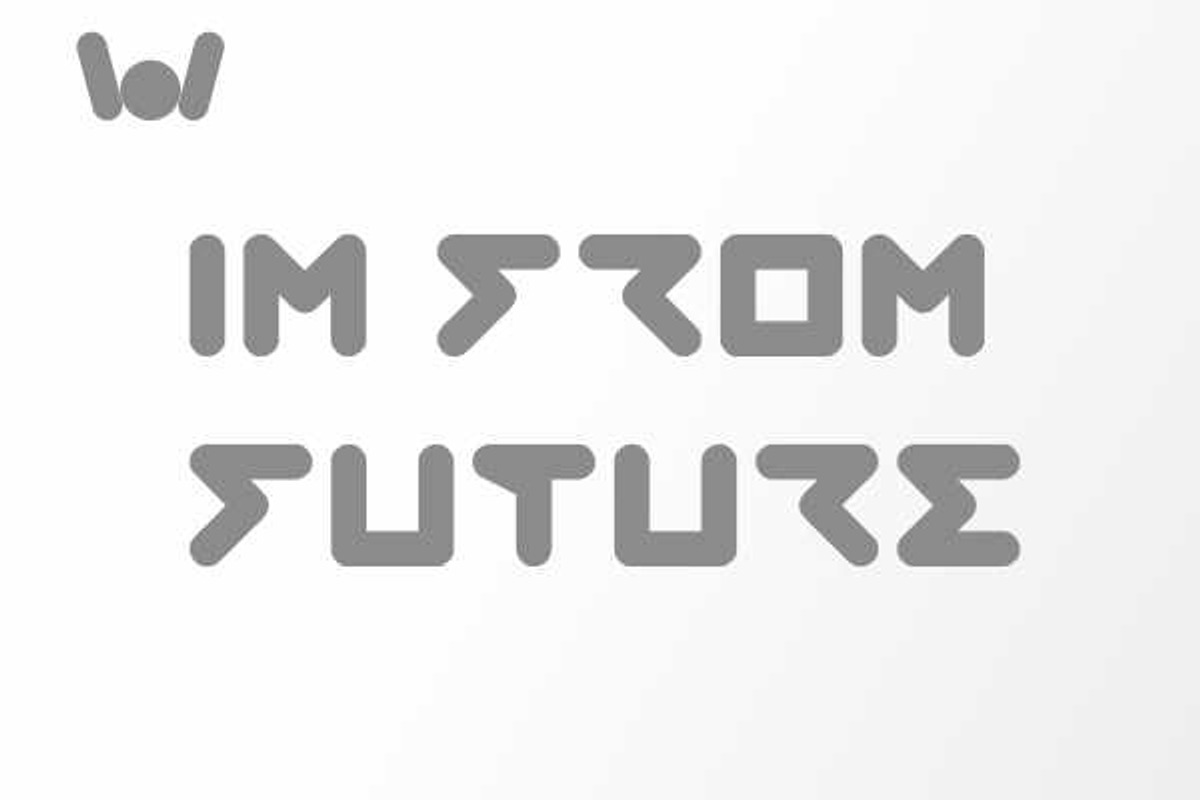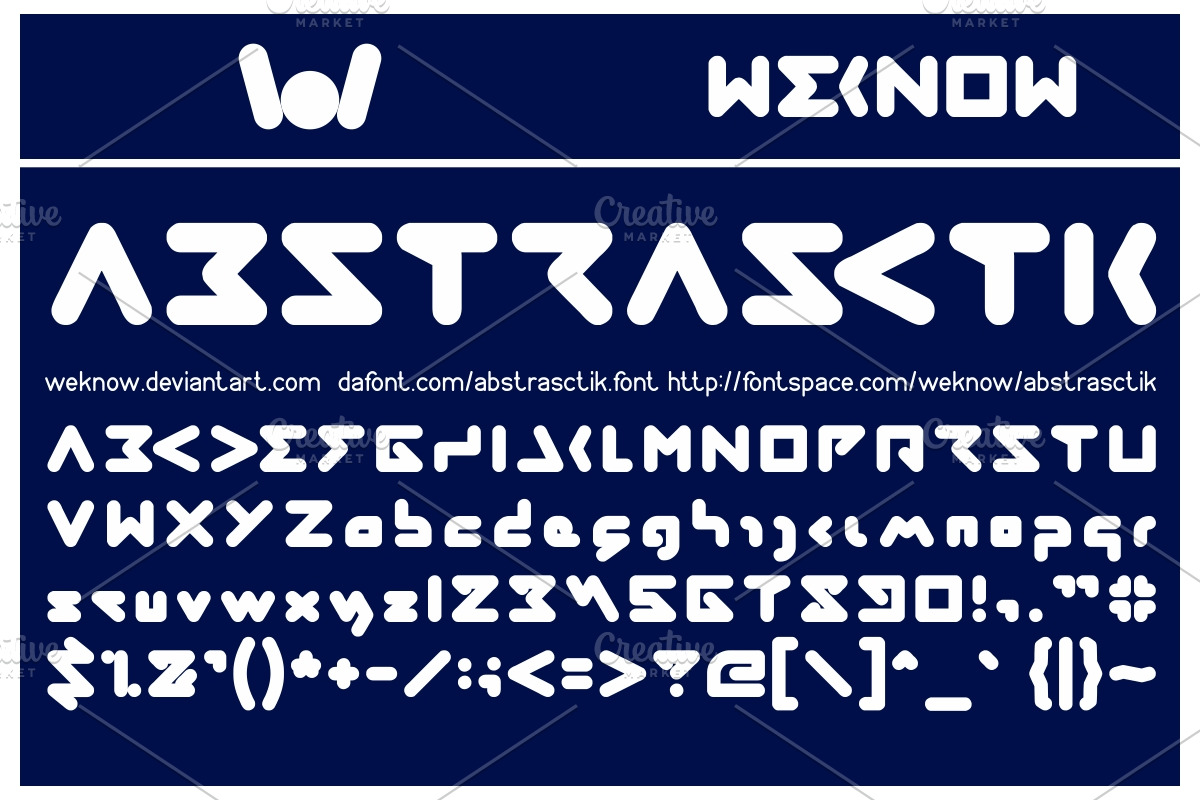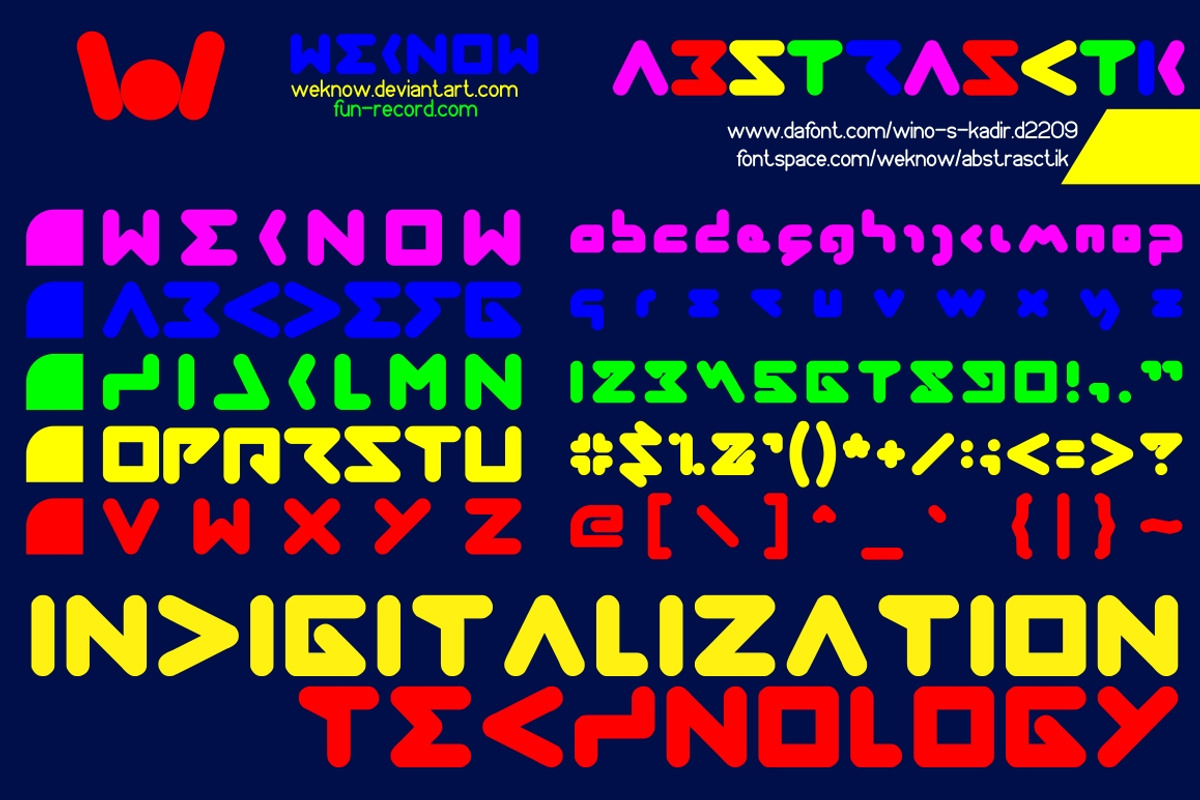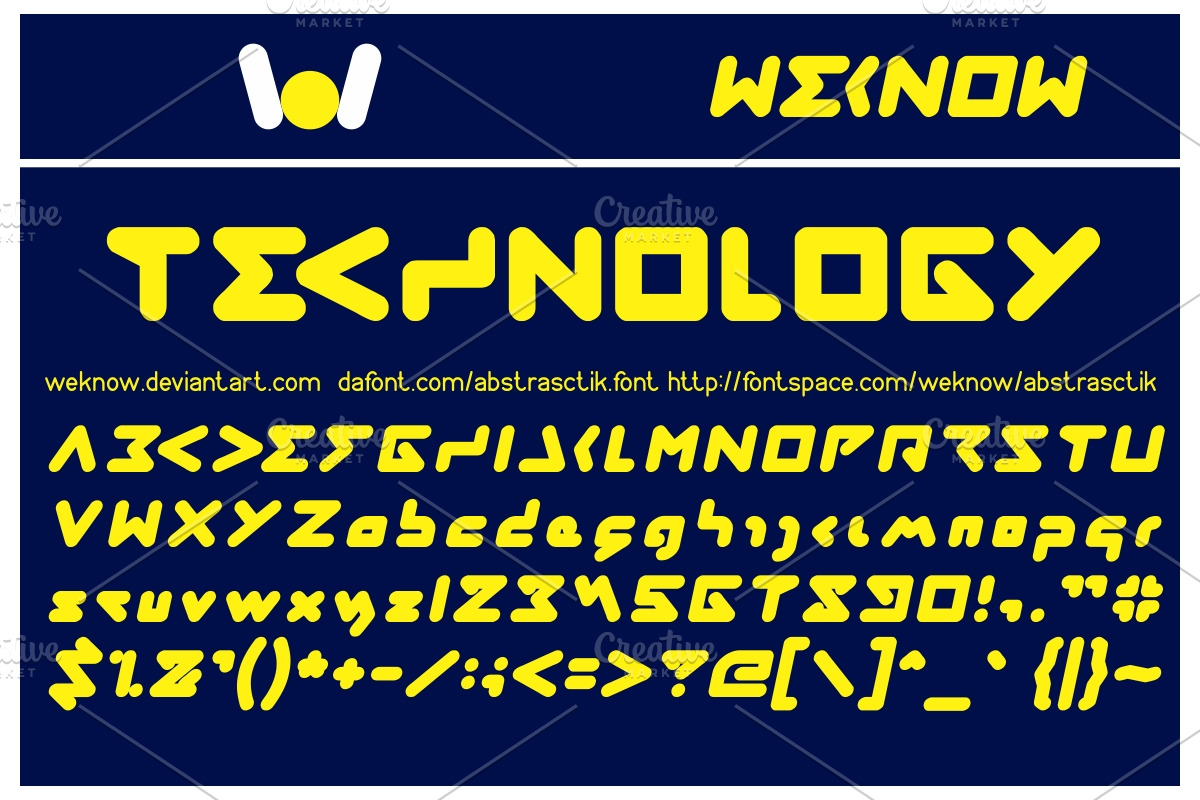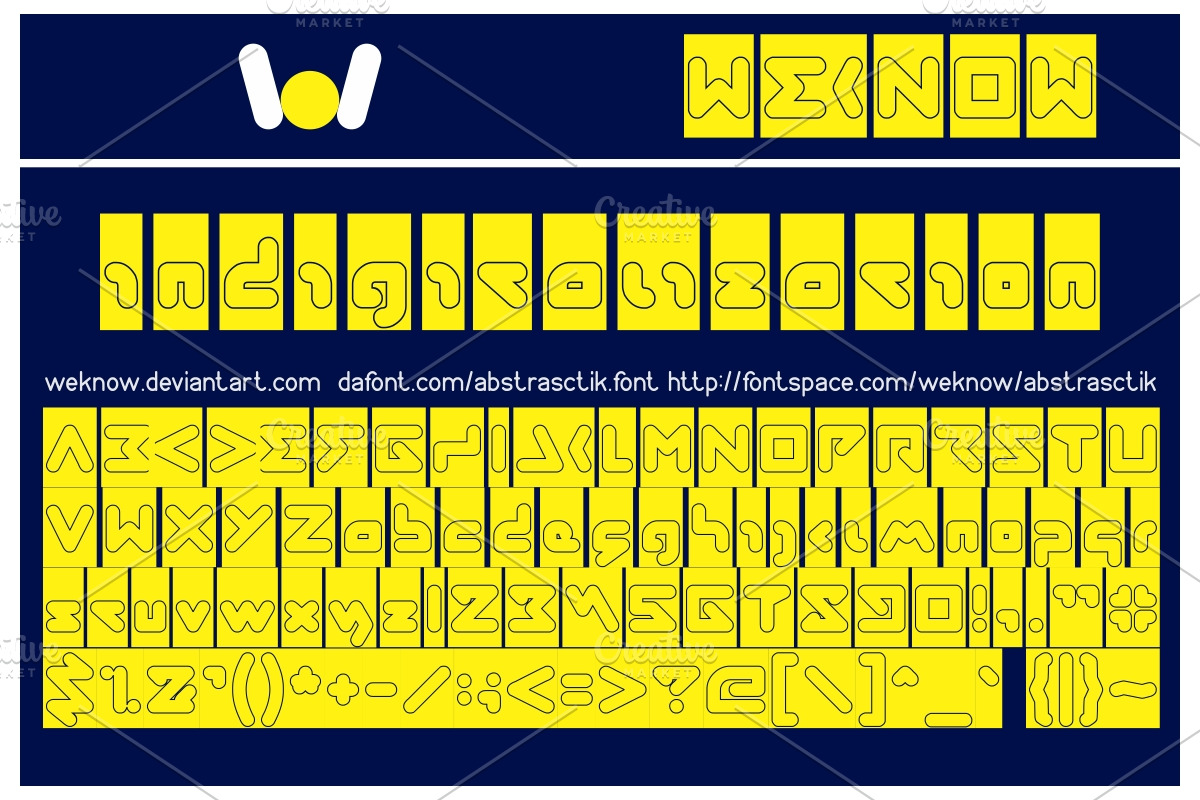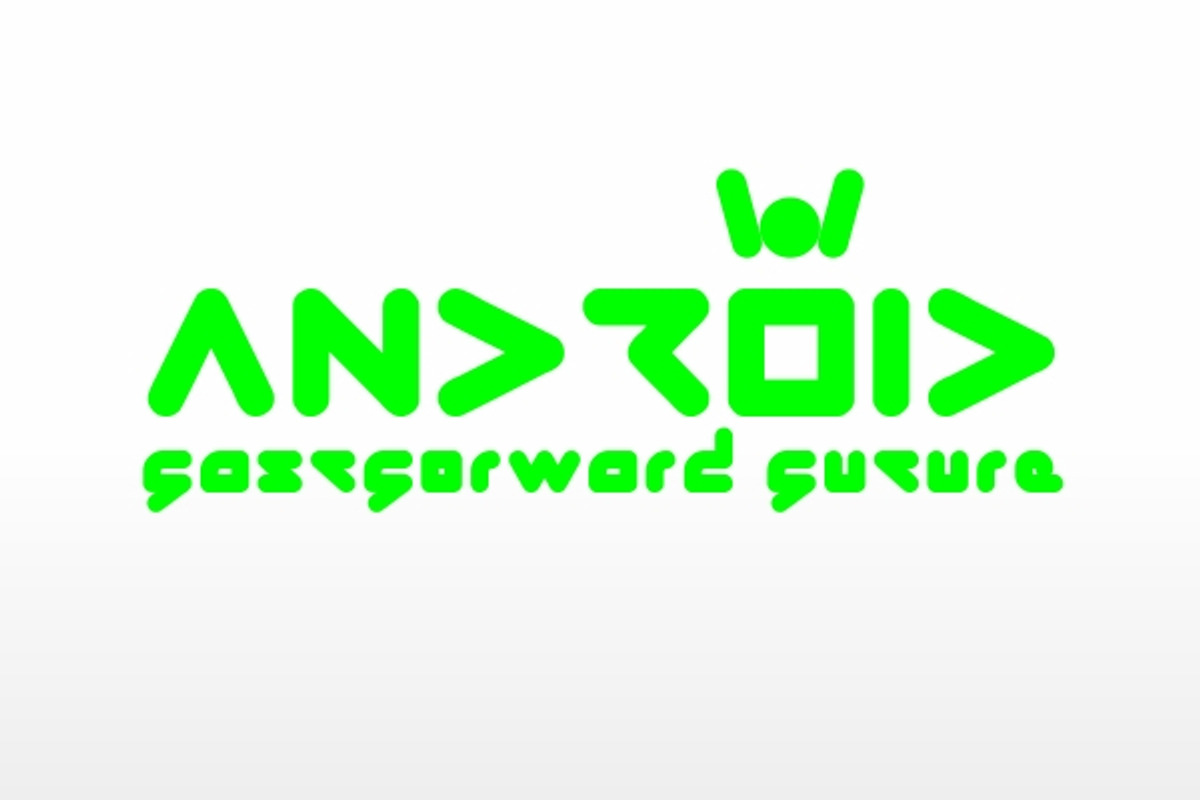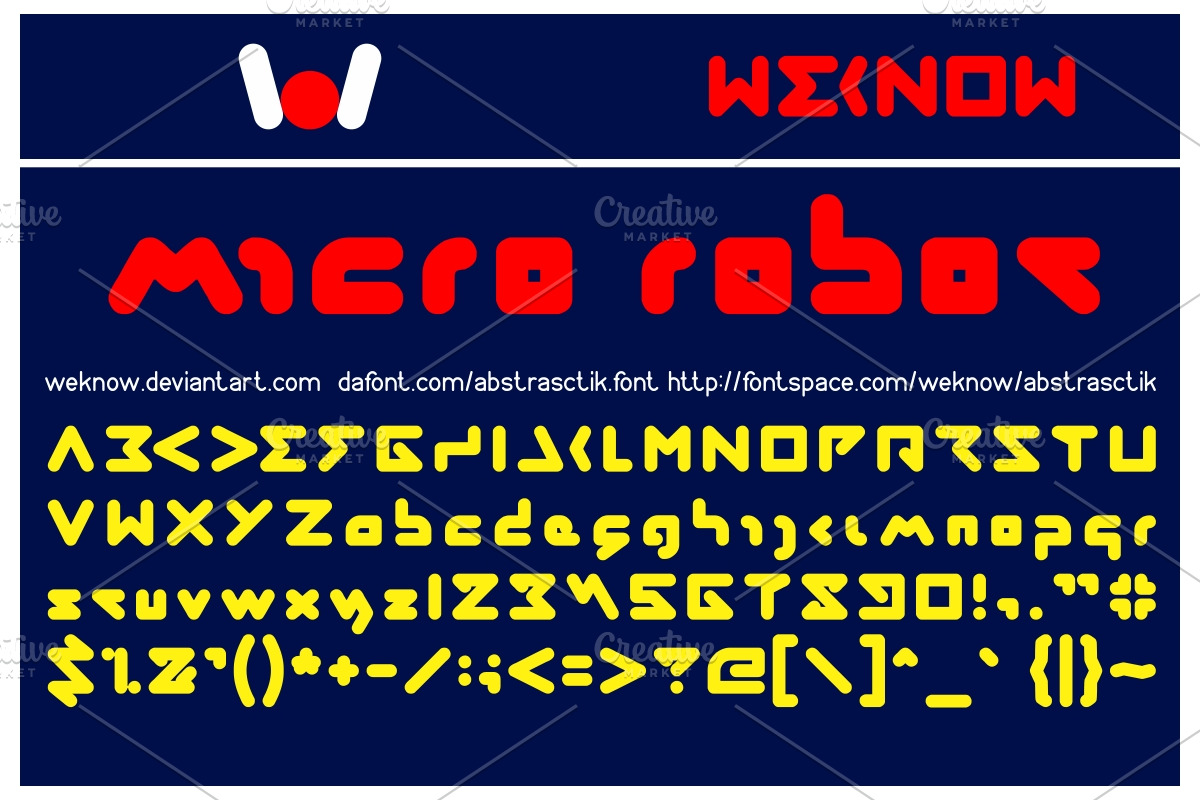
abstrasctik font
abstrasctik font by weknow is a font selected for branding, posters, packaging, typography.
Why abstrasctik font is worth a look
abstrasctik font by weknow fits naturally into Branding, posters, packaging, typography.